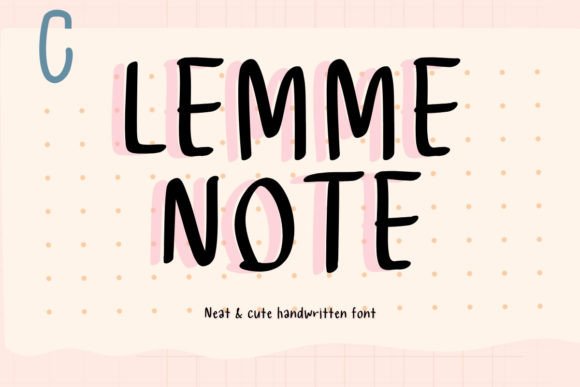
Discover LemmeNote Font – Your Neat and Cute Handwriting Solution!
Are you tired of using the same old fonts for your projects? Do you want to add a personal touch to your invitations, branding, and other creative endeavors? Look no further than LemmeNote Font, the perfect solution for those seeking a neat and cute handwriting style. In this article, we’ll dive into the world of LemmeNote Font, exploring its features, benefits, and uses.
What is LemmeNote Font?
LemmeNote Font is a modern, handwriting-style font designed to bring a touch of elegance and sophistication to your projects. Its neat and cute handwriting style makes it perfect for a variety of applications, from invitations and greeting cards to branding and advertising.
One of the standout features of LemmeNote Font is its impeccable design. The font’s creator has paid close attention to detail, ensuring that every letter and character is carefully crafted to provide a seamless reading experience. The result is a font that is both visually appealing and highly legible.
Key Features of LemmeNote Font
- Neat and Cute Handwriting Style: LemmeNote Font boasts a unique, handwriting-style design that is both elegant and playful.
- Modern Design: The font’s modern design ensures that it stays up-to-date with the latest trends and styles.
- Impeccable Legibility: LemmeNote Font is designed to provide a seamless reading experience, making it perfect for long-form content.
- Highly Versatile: The font can be used for a wide range of applications, from invitations and greeting cards to branding and advertising.
Benefits of Using LemmeNote Font
So, why should you choose LemmeNote Font for your projects? Here are just a few benefits of using this amazing font:
- Adds a Personal Touch: LemmeNote Font’s unique, handwriting-style design allows you to add a personal touch to your projects.
- Elevates Your Brand: The font’s elegant design makes it perfect for branding and advertising, helping you to establish a professional image.
- Increases Readability: LemmeNote Font’s impeccable legibility ensures that your content is easy to read and understand.
- Versatile and Flexible: The font can be used for a wide range of applications, making it a great addition to your font library.
Uses of LemmeNote Font
So, what can you use LemmeNote Font for? The possibilities are endless! Here are a few ideas to get you started:
- Invitations and Greeting Cards: LemmeNote Font is perfect for creating beautiful, personalized invitations and greeting cards.
- Branding and Advertising: The font’s elegant design makes it perfect for branding and advertising, helping you to establish a professional image.
- Personal Projects: LemmeNote Font is also great for personal projects, such as scrapbooking, journaling, and more.
- Digital Content: The font can be used for digital content, such as blog posts, social media graphics, and more.
Tips and Tricks for Using LemmeNote Font
Here are a few tips and tricks for getting the most out of LemmeNote Font:
- Experiment with Different Sizes: LemmeNote Font looks great in a variety of sizes, so don’t be afraid to experiment.
- Pair with Other Fonts: LemmeNote Font pairs well with other fonts, so try combining it with different fonts for a unique look.
- Use for Headings and Body Text: LemmeNote Font is perfect for both headings and body text, making it a great all-around font.
- Add a Personal Touch: Use LemmeNote Font to add a personal touch to your projects, such as a handwritten note or signature.
In conclusion, LemmeNote Font is a fantastic addition to any font library. Its unique, handwriting-style design makes it perfect for a wide range of applications, from invitations and branding to personal projects and digital content. With its impeccable legibility and modern design, LemmeNote Font is sure to elevate your projects to the next level.